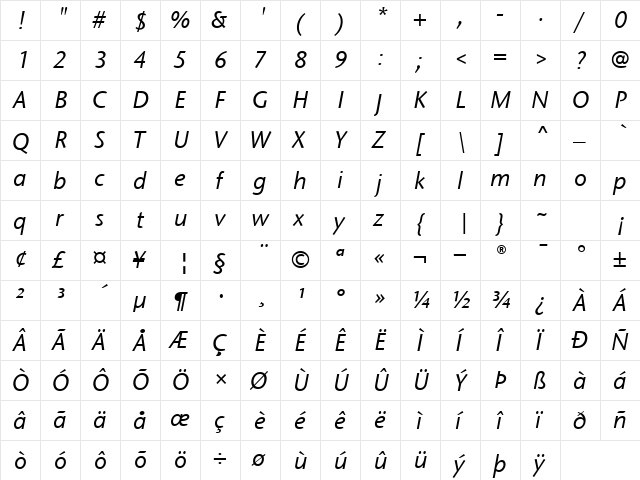
Stone Sans ITC TT MediumItalic
Design Context for Stone Sans ITC TT Typeface
Stone Sans ITC TT takes a measured approach to typography — its balanced proportions and neutral character make it a reliable workhorse for both digital and print work. The slanted form adds forward momentum and visual energy.